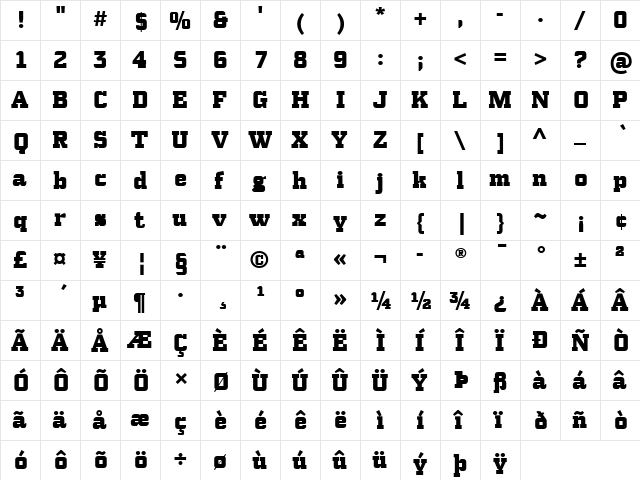
PF Synch Pro Black Black
Design Context for PF Synch Pro Black Typeface
PF Synch Pro Black takes a measured approach to typography — its balanced proportions and neutral character make it a reliable workhorse for both digital and print work.